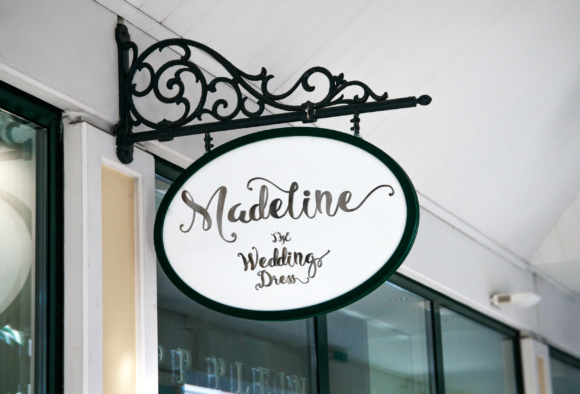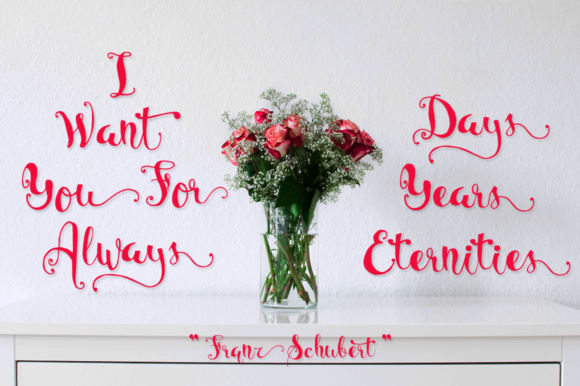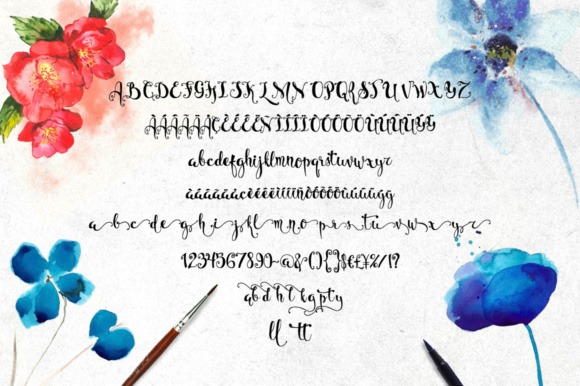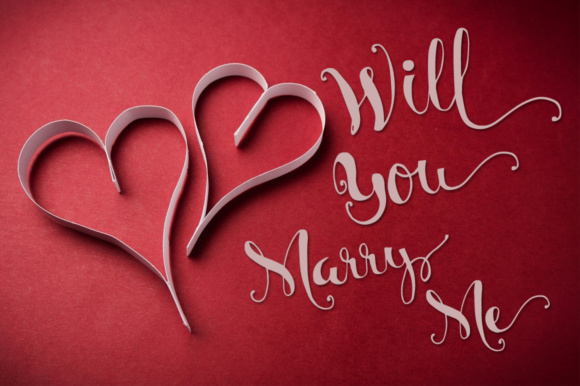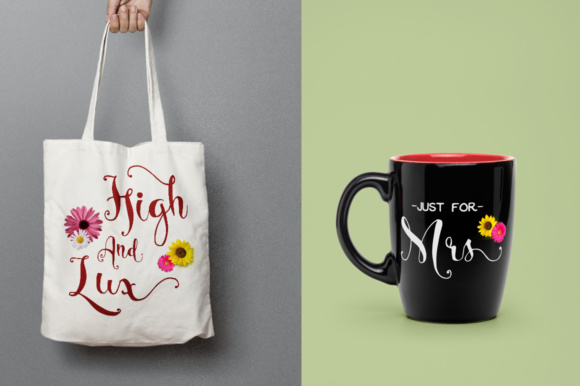
Bellanche Font: The Ultimate Elegant Calligraphy Script for Your Design Needs
Are you a designer or crafter looking for a font that exudes elegance and romance? Look no further than the Bellanche Font. This beautiful calligraphy script is perfect for adding a touch of sophistication and whimsy to your designs. With its flirty, decorative end characters and dancing baseline, the Bellanche Font is sure to make your projects stand out.
What is the Bellanche Font?
The Bellanche Font is an elegant calligraphy script that is designed to add a touch of romance and sophistication to your designs. Its unique and flowing style makes it perfect for a variety of projects, from wedding invitations and branding materials to blog headers and business cards.
Key Features of the Bellanche Font
- Flirty, decorative end characters: The Bellanche Font features beautiful, decorative end characters that add a touch of whimsy and elegance to your designs.
- Dancing baseline: The font’s dancing baseline gives it a playful and dynamic feel, making it perfect for designs that need to stand out.
- Elegant calligraphy script: The Bellanche Font is designed to mimic the look of elegant calligraphy, making it perfect for designs that require a touch of sophistication.
Uses for the Bellanche Font
The Bellanche Font is versatile and can be used for a variety of design projects, including:
- Wedding invitations: The Bellanche Font is perfect for wedding invitations, adding a touch of romance and elegance to your wedding stationery.
- Branding materials: The font’s elegant and sophisticated style makes it perfect for branding materials, such as logos and business cards.
- Blog headers: Add a touch of elegance to your blog with the Bellanche Font, perfect for headers and titles.
- Business cards: The Bellanche Font is perfect for business cards, adding a touch of sophistication and professionalism to your design.
Why Choose the Bellanche Font?
There are many fonts available that offer a similar style to the Bellanche Font, but here are a few reasons why it stands out:
- Unique style: The Bellanche Font has a unique and distinctive style that sets it apart from other fonts.
- Elegant and sophisticated: The font’s elegant and sophisticated style makes it perfect for designs that require a touch of luxury.
- Versatile: The Bellanche Font is versatile and can be used for a variety of design projects.
Tips for Using the Bellanche Font
Here are a few tips for using the Bellanche Font in your designs:
- Use it sparingly: The Bellanche Font is a statement font, so use it sparingly to add emphasis to your design.
- Pair it with a simple font: Pair the Bellanche Font with a simple font to create contrast and add visual interest to your design.
- Experiment with colors: The Bellanche Font looks beautiful in a variety of colors, so experiment to find the perfect shade for your design.
| Font Name | Bellanche Font |
| Author | Hart Foundry |
The Bellanche Font is a beautiful and elegant calligraphy script that is perfect for designers and crafters looking to add a touch of sophistication and romance to their designs. With its flirty, decorative end characters and dancing baseline, it’s sure to make your projects stand out. Whether you’re designing wedding invitations, branding materials, or blog headers, the Bellanche Font is a versatile and elegant choice.
So why not give the Bellanche Font a try? With its unique style and elegant sophistication, it’s sure to become a favorite in your design arsenal.